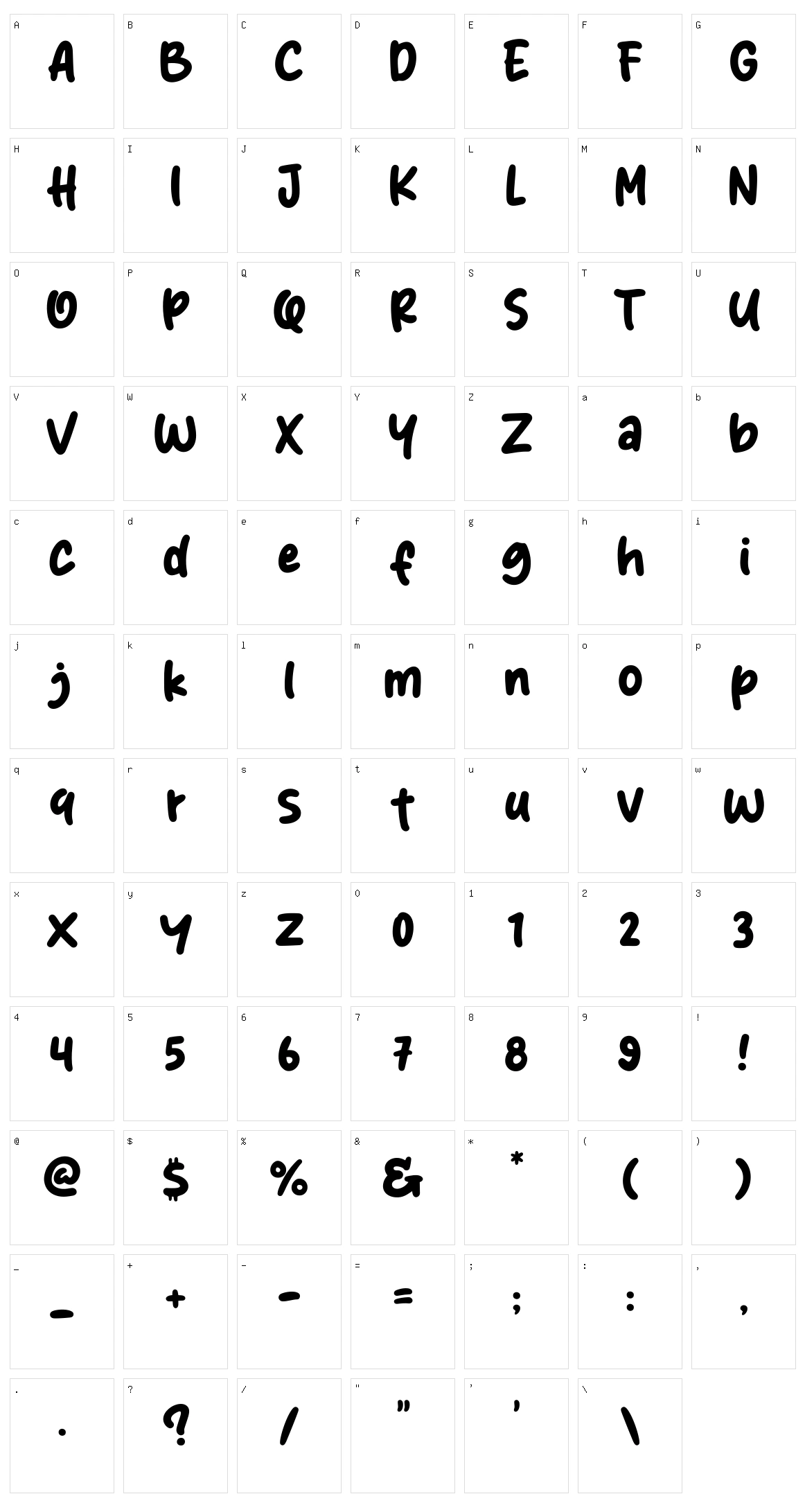
The free font Hello Samosa is carefully designed by Khurasan, showcasing a thoughtful balance of creativity and usability and falls under the Cartoon font style. When you download the ZIP file, it contains only 347.58 KB of font files, making it lightweight and quick to download. Please review the license details below to understand permitted usage and distribution rights. If license information is not available, we recommend using this font for personal projects only or contacting the author directly for commercial usage permissions.